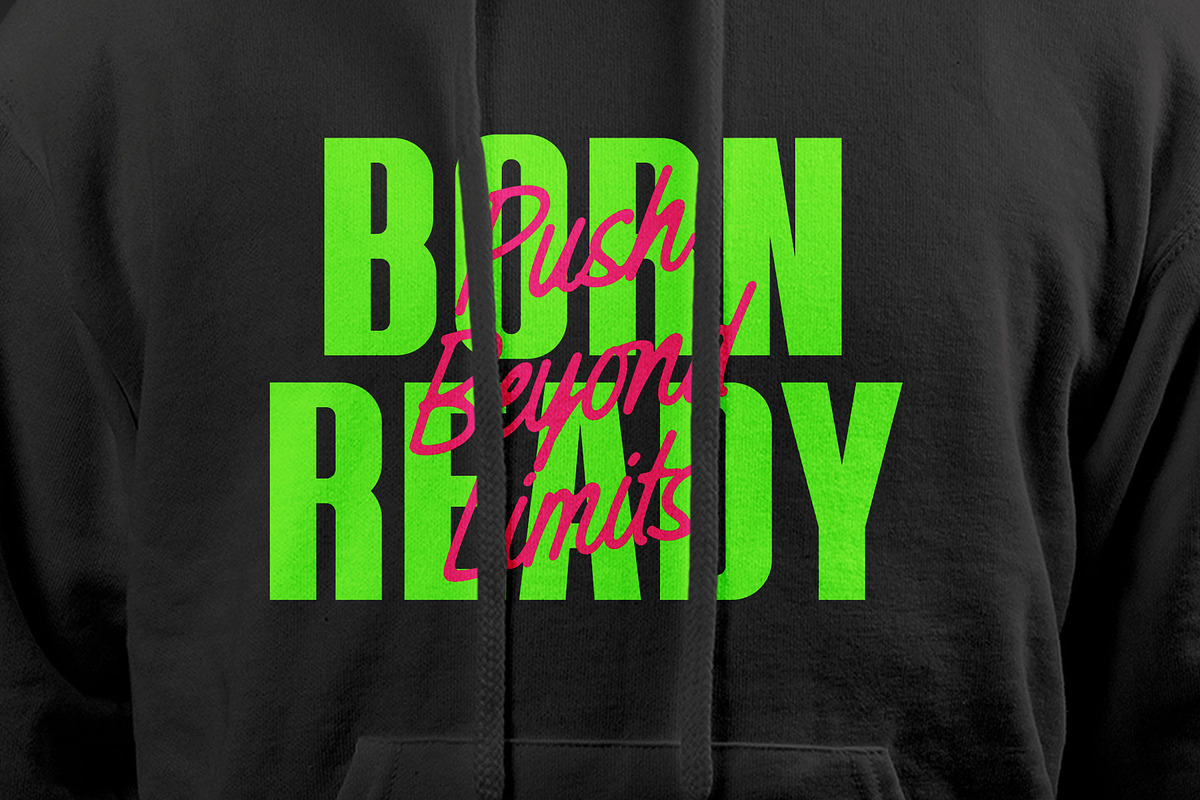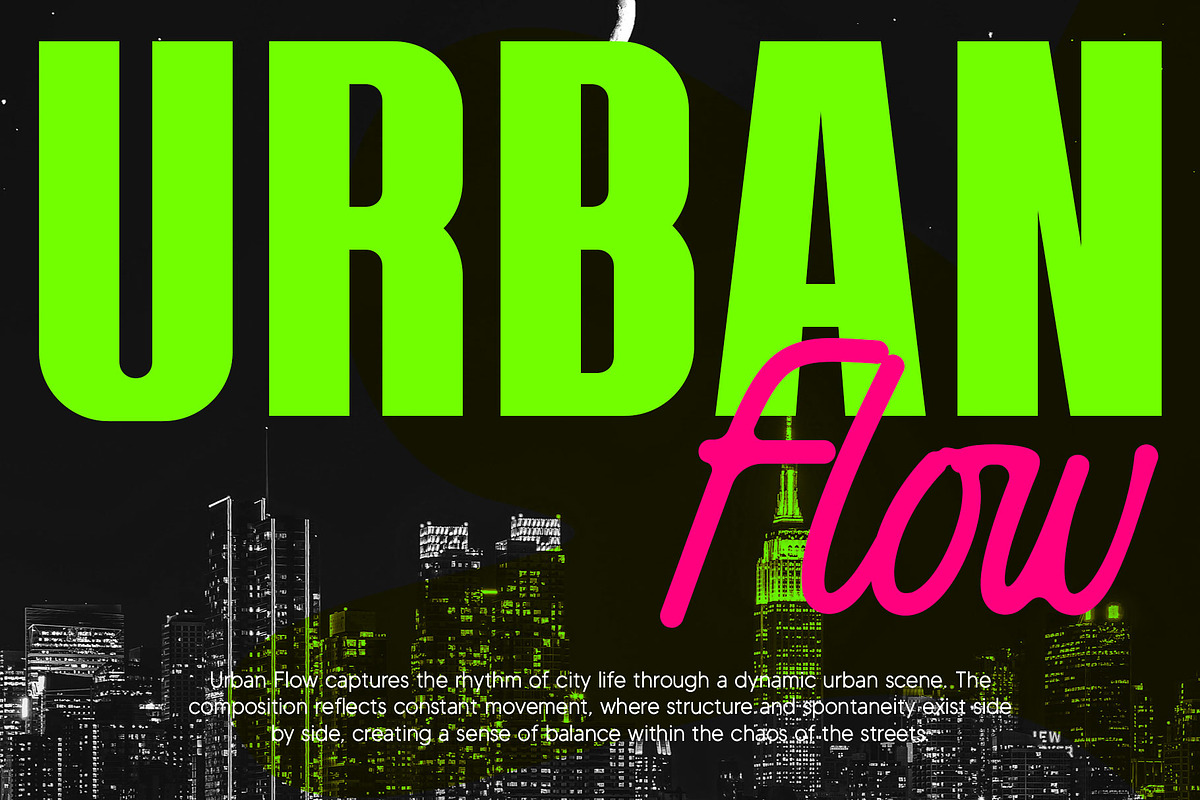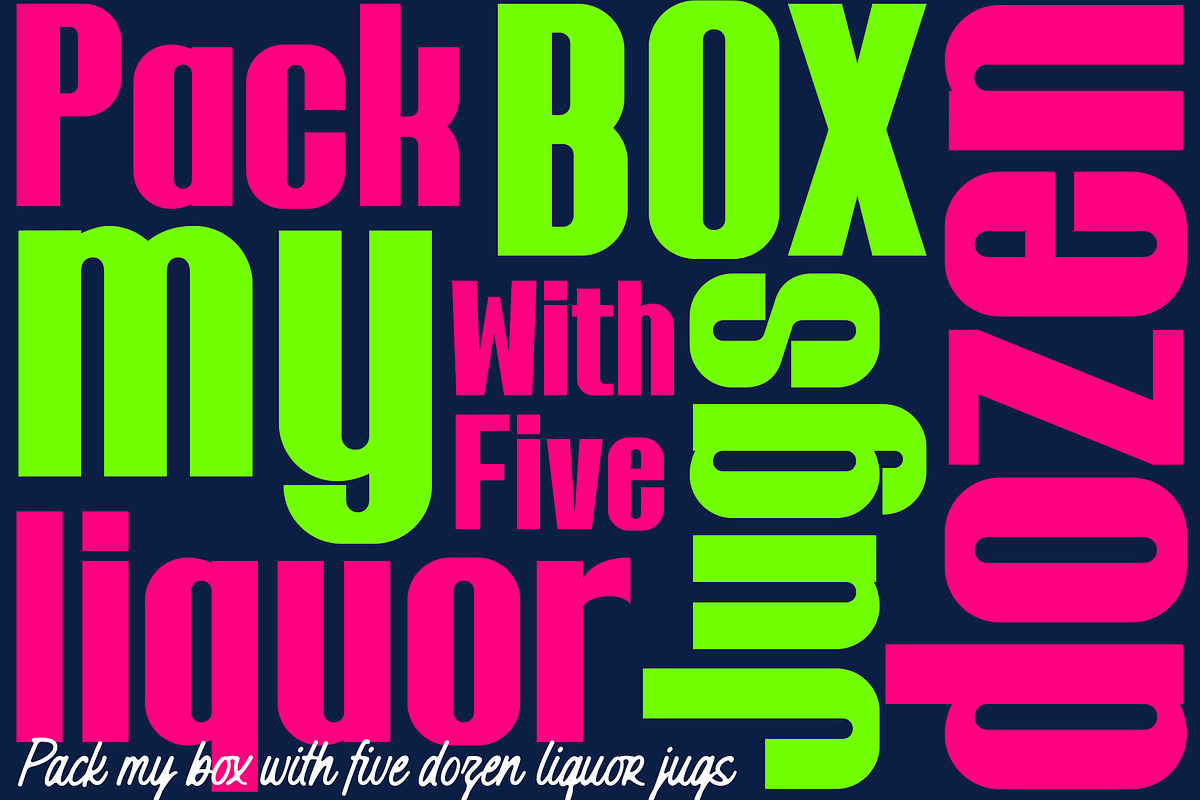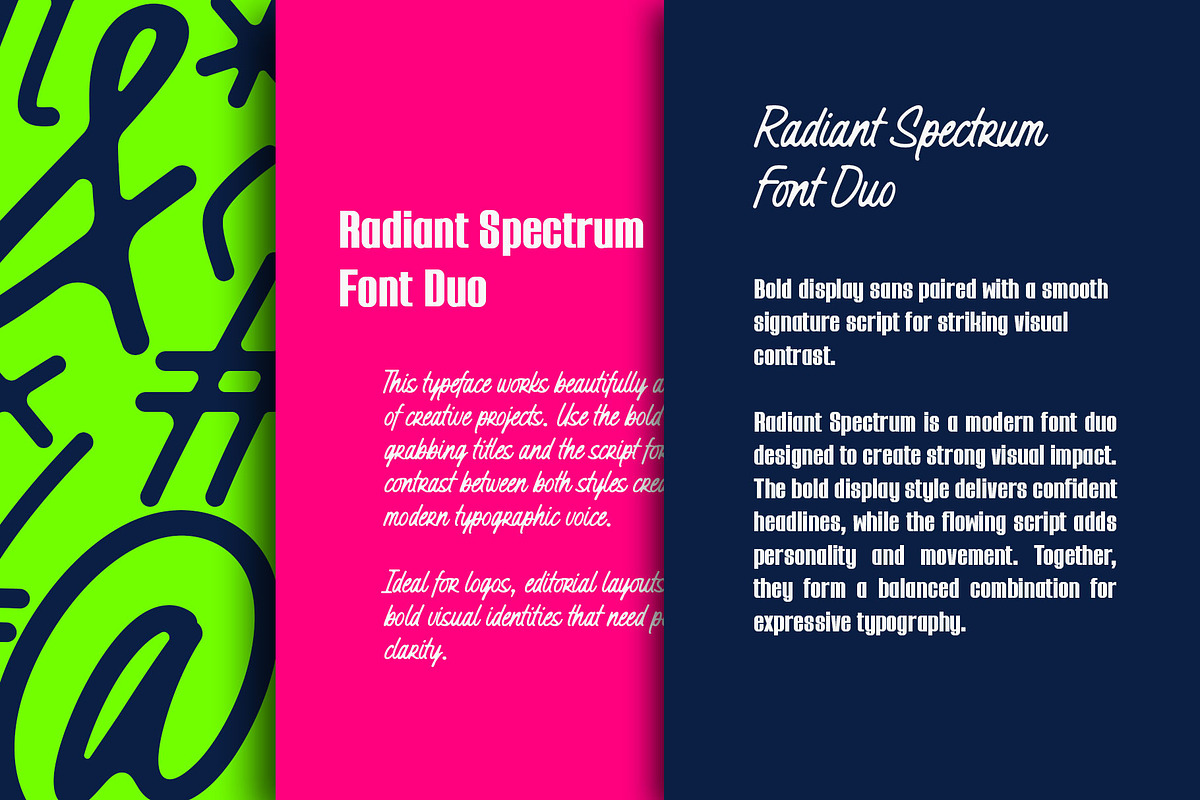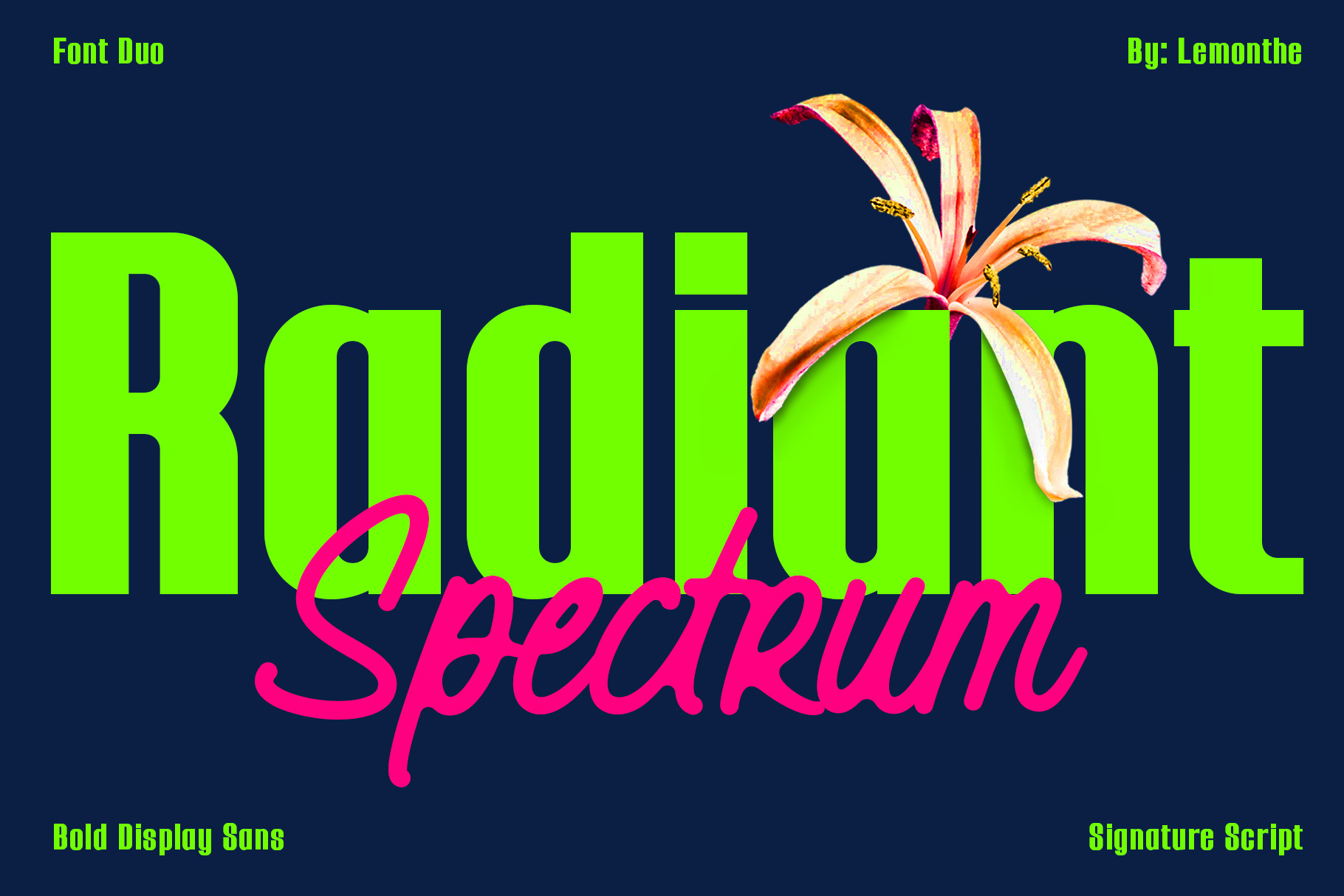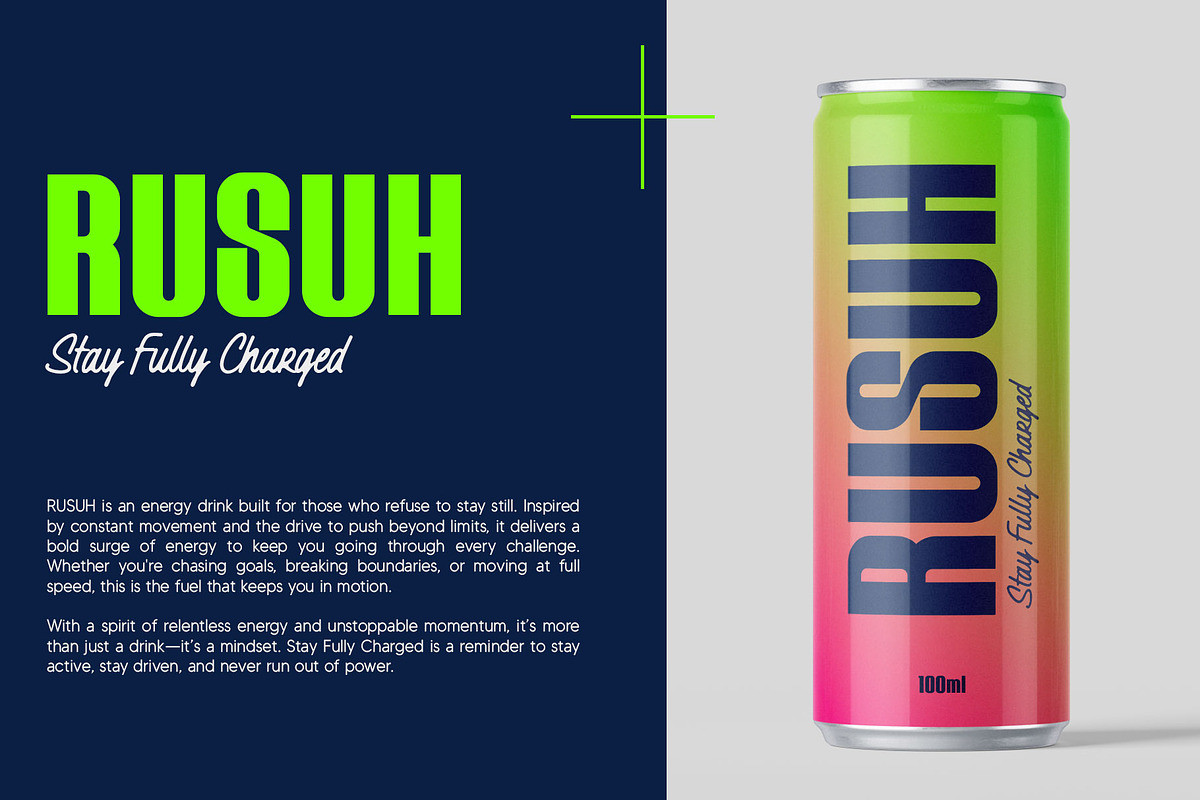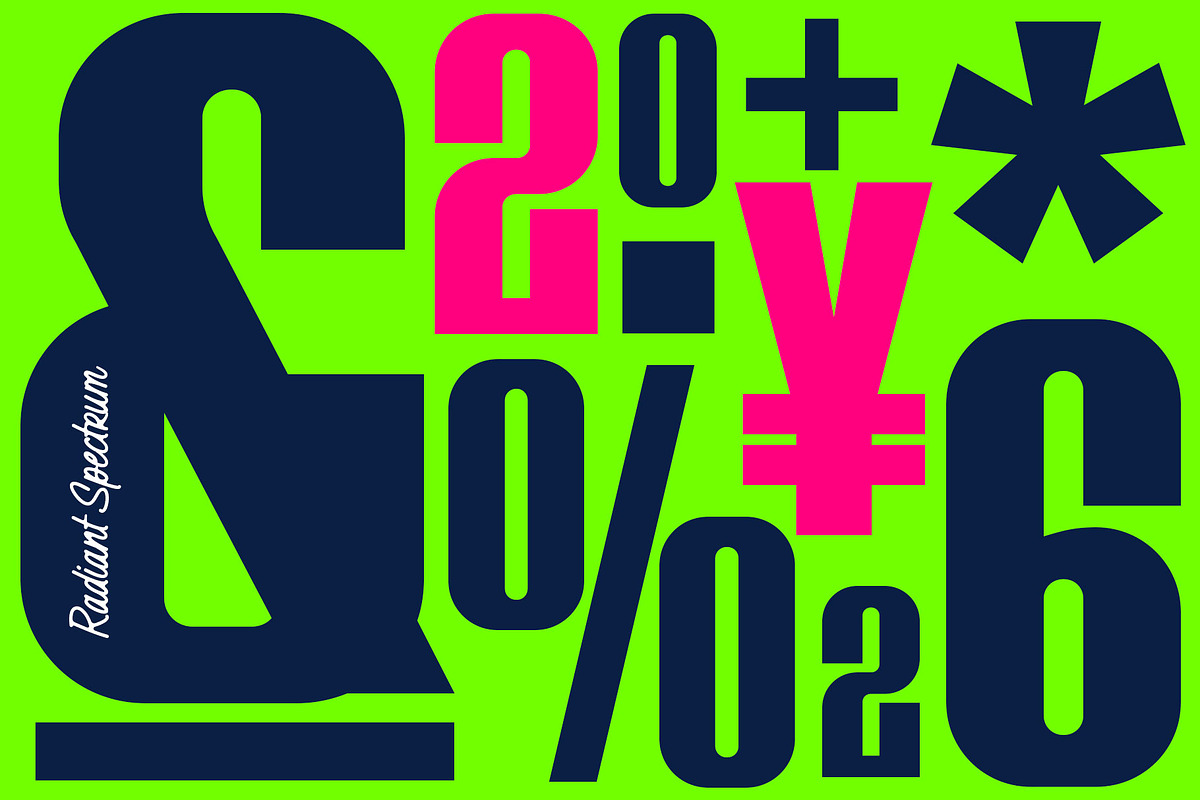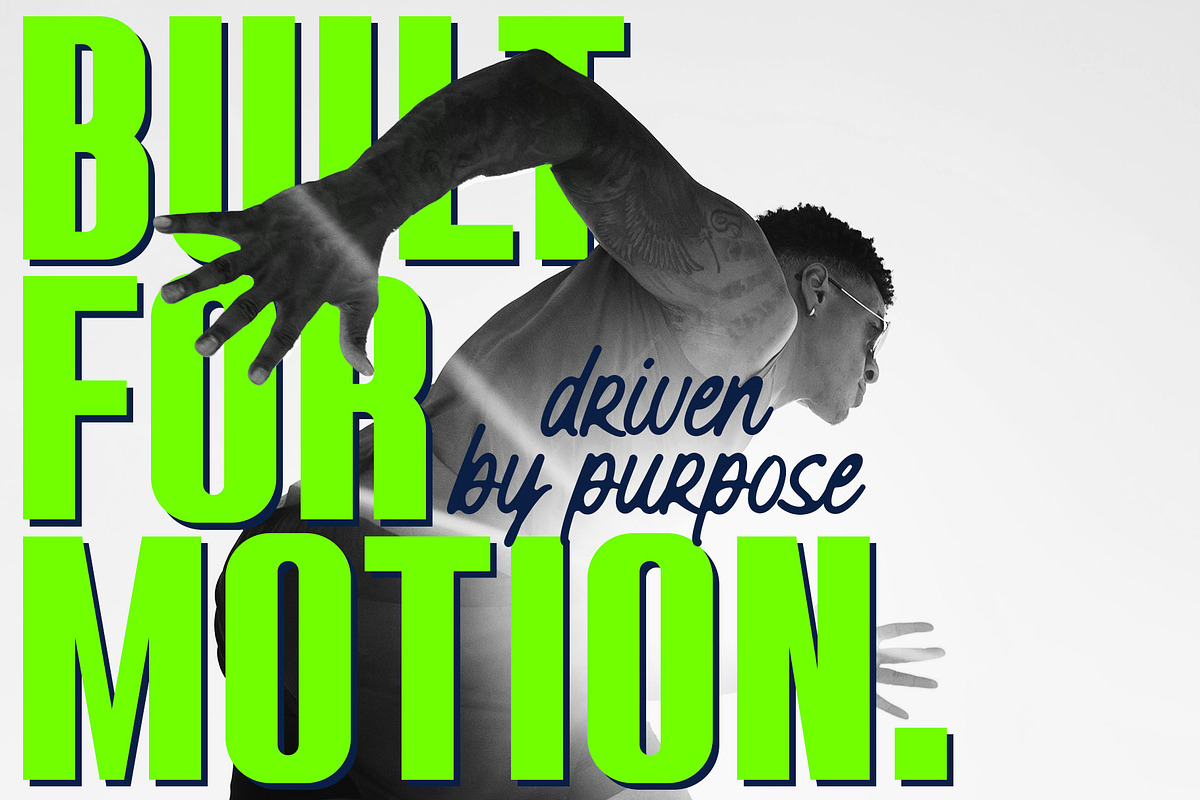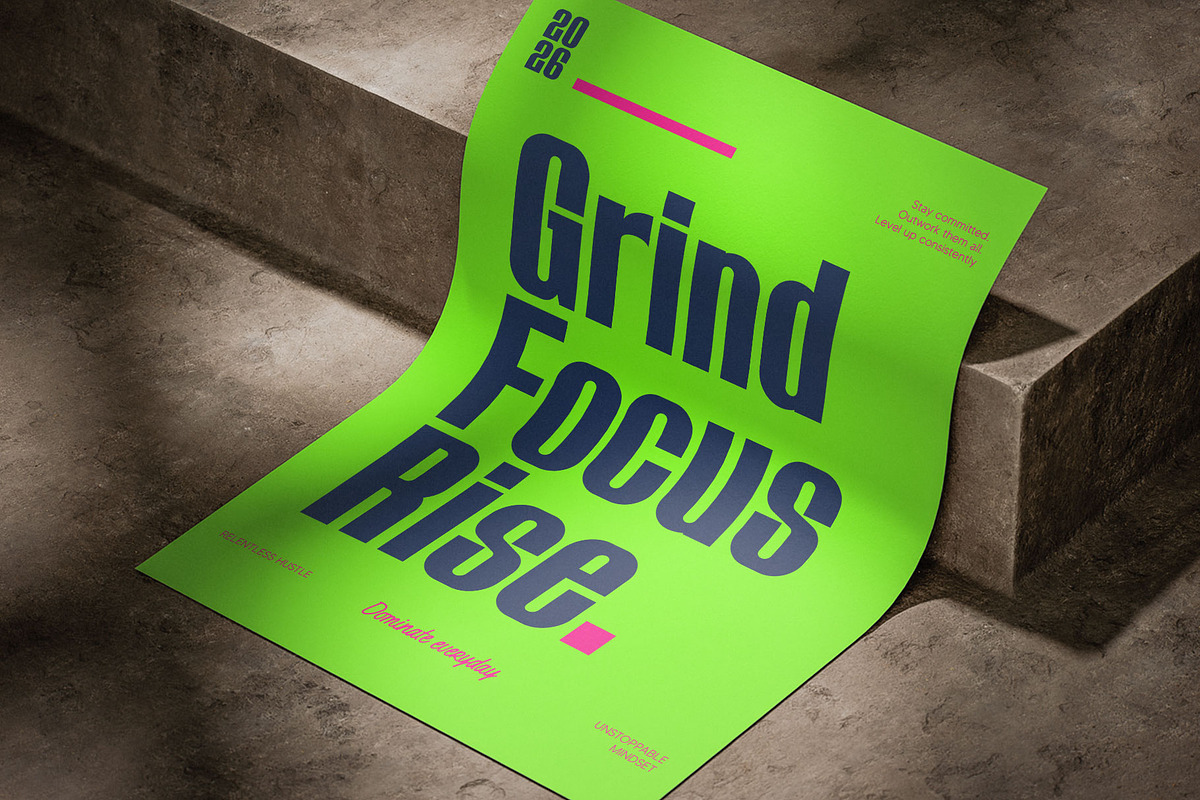
Radiant Spectrum | Font Duo
Radiant Spectrum is a modern font duo that combines a bold display sans with a smooth signature script. The strong sans delivers a clean and modern impression, while the script adds a natural and stylish feel. The contrast between the two creates a clear visual balance, making it easy to use across various design compositions. This combination helps produce a dynamic yet flexible look for different visual needs.
Radiant Spectrum is suitable for branding, posters, packaging, social media, logos, and editorial designs. The balanced contrast and clean character help create a modern, readable, and eye-catching appearance without feeling excessive. Combine both styles to create unique compositions and discover your own design style.
- Display Sans & Script Signature